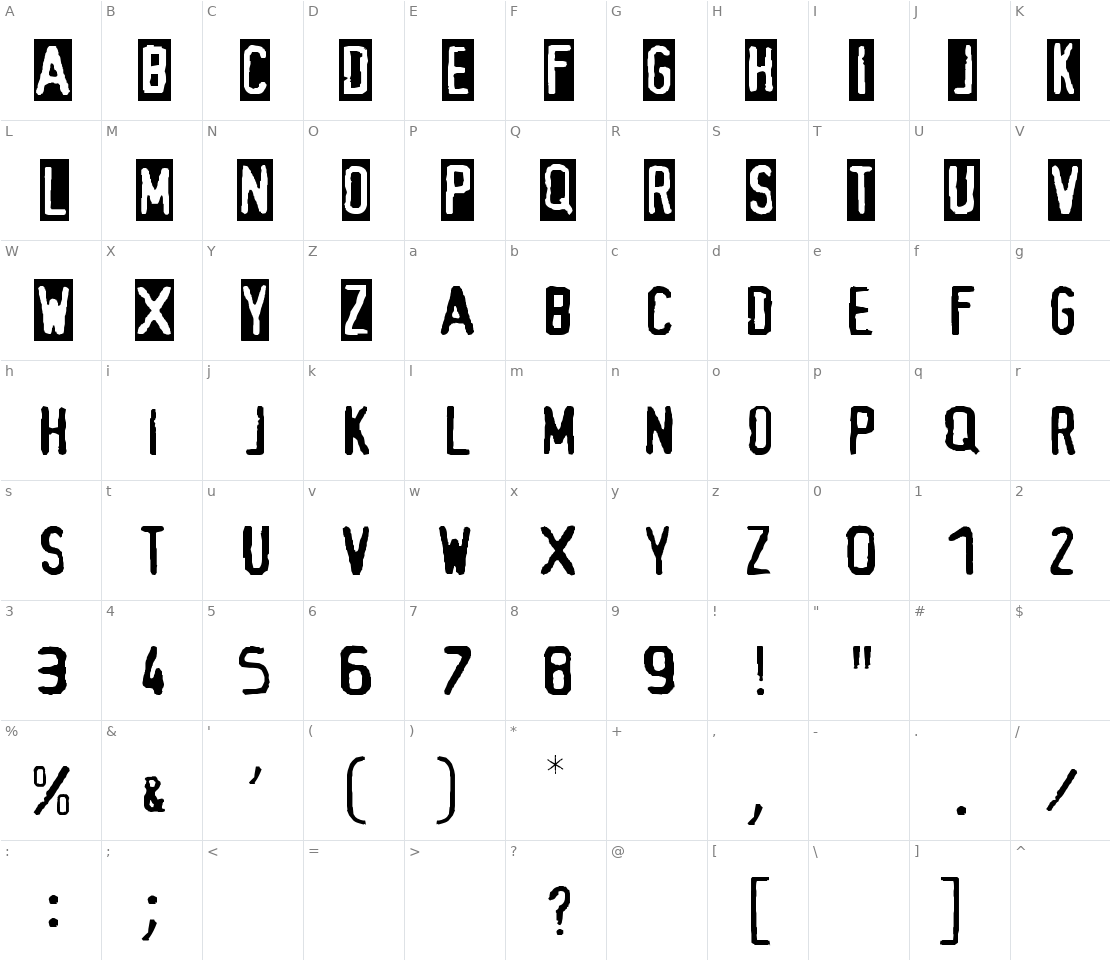
Alias
Alias is a bold, uppercase display face with a heavy stamped quality, each letter looking like it was pressed hard into rough paper or inked with a worn block. The distressed edges and gritty texture give it a raw, no-frills grunge energy that works naturally on posters, album art, and editorial headlines where polish would feel out of place. It reads best at large sizes where the roughness registers as deliberate rather than degraded.